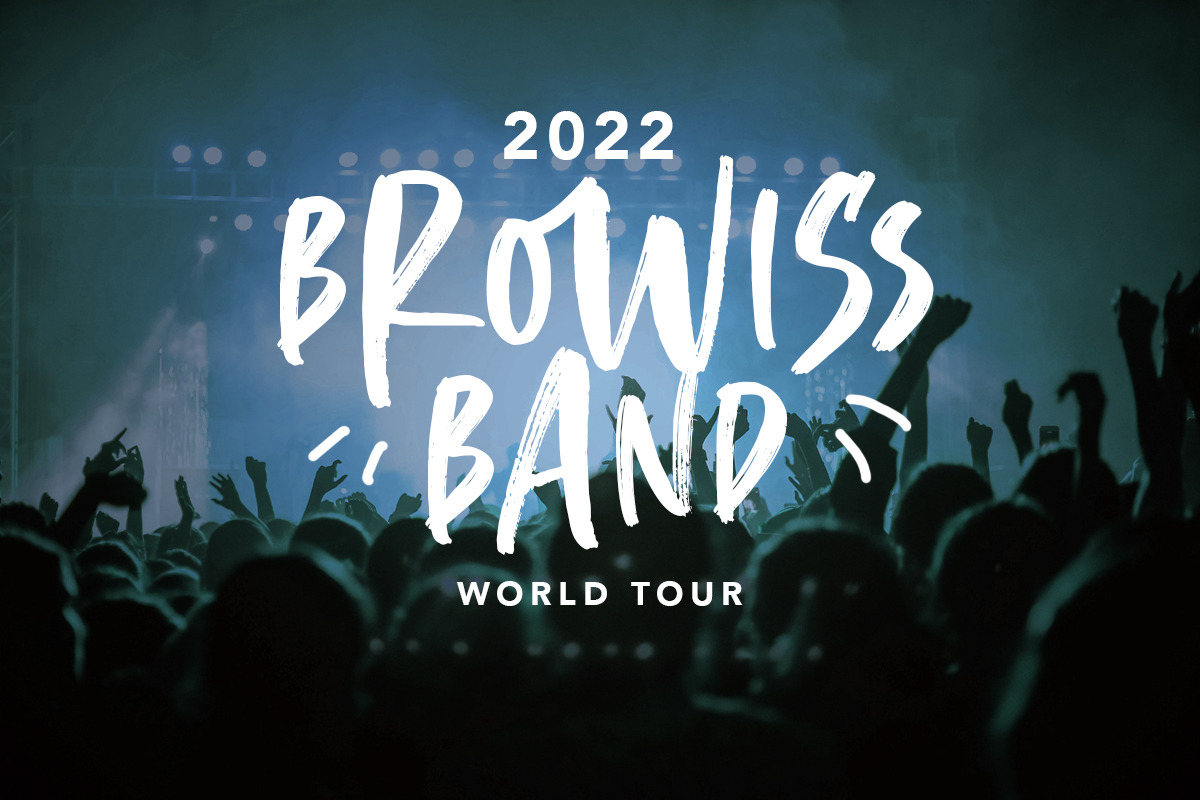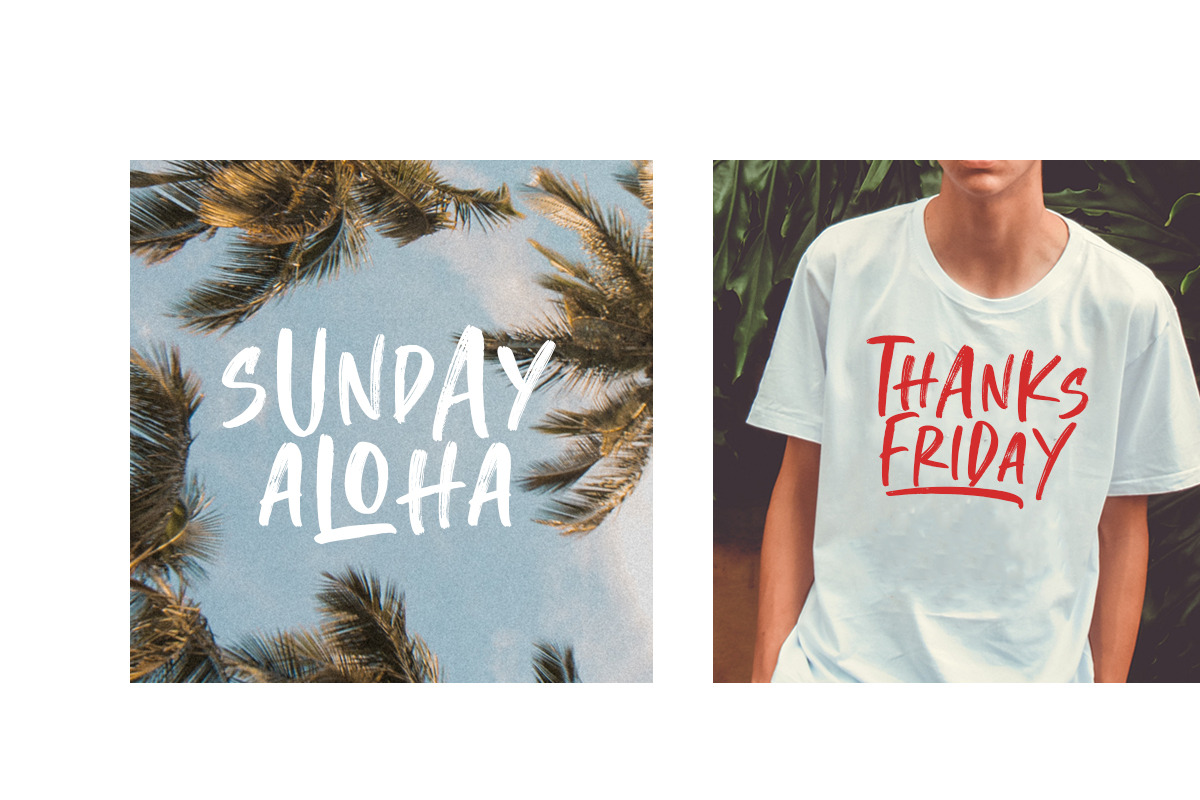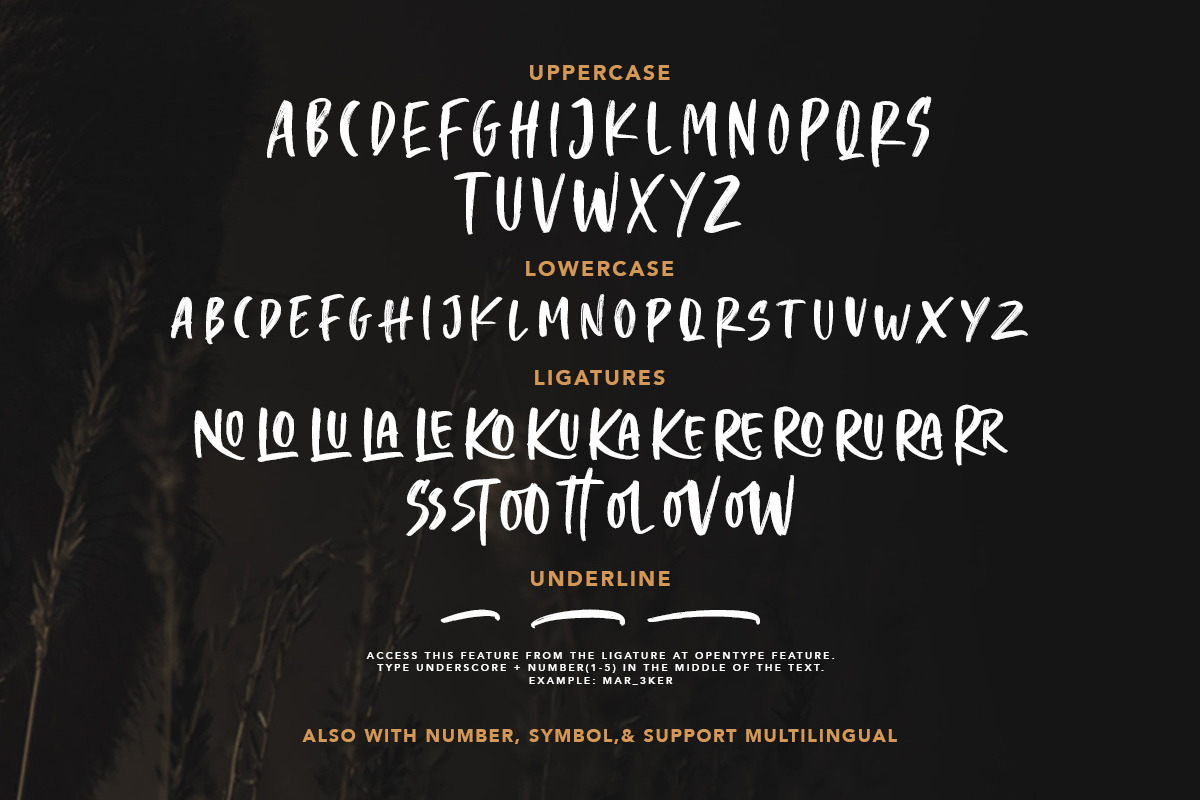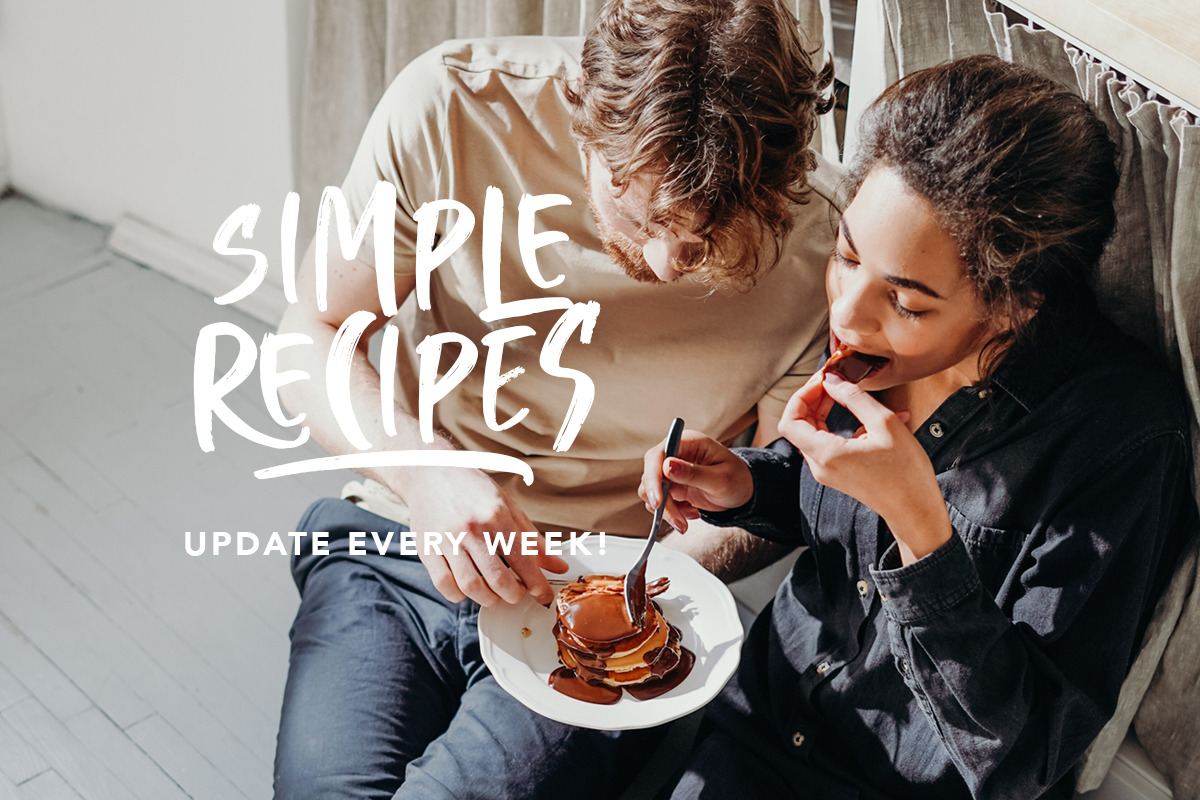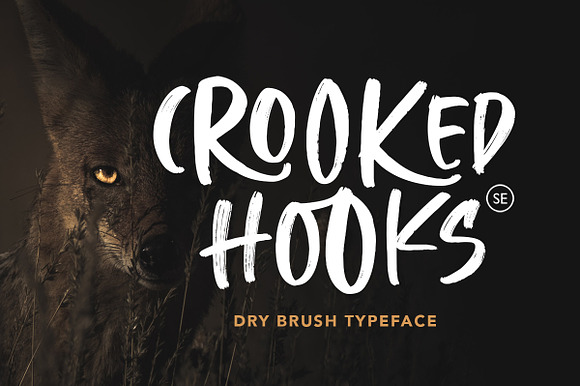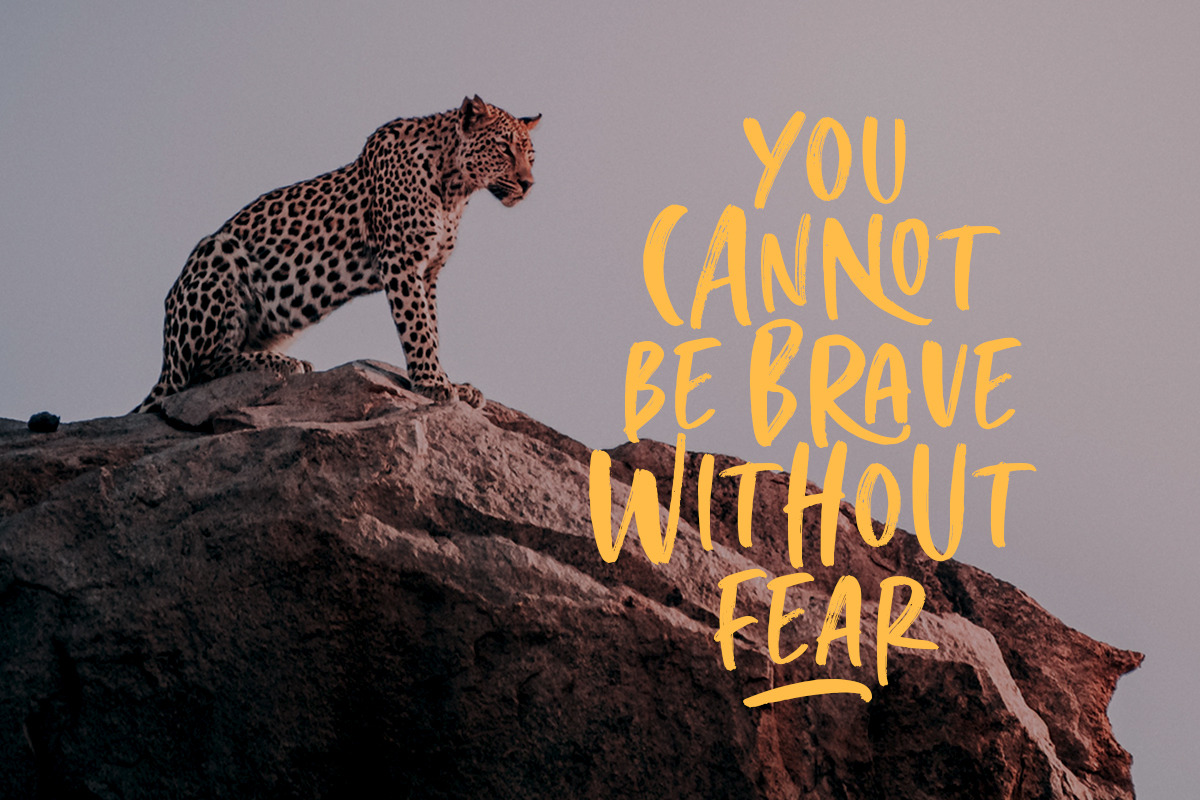
Crooked Hooks - Dry Brush Font
Crooked Hooks is all caps font with street style brush. It's contain uppercase and lowercase in different style, number, symbol, and also with multilingual support!
There is a lot of stylistic ligatures in this font. This font also contain opentype feature for adding line under a word, You can access it from ligature, simply type underscore + number (1-3) in the middle of the text. For example: Mar3ker. You can use this font for any project such as a branding, poster, or quotes!
- It's contain uppercase and lowercase in different style, number, symbol, and also with multilingual support!
- There is a lot of stylistic ligatures in this font.
- This font also contain opentype feature for adding line under a word, You can access it from ligature, simply type underscore + number (1-3)